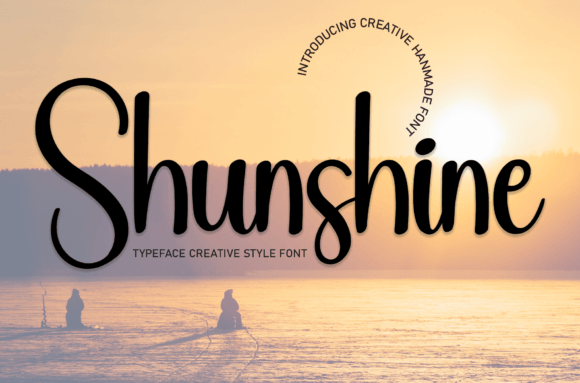
Introducing Shunshine: A Font Family Born from Warmth and Cheer
In a digital landscape often void of genuine emotion, we forget the heart-stopping beauty of handwritten notes and intimate invitations. Shunshine Font is here to invoke that nostalgia, reintroduce warmth into our interactions, and breathe life into your creative projects.
Shunshine is a meticulously crafted script font, born from the desire to bring a piece of home into every letter. Every curve is a gentle embrace, every stroke a stroke of comfort. Its charmingly imperfect edges mimic the human touch, inviting a sense of connection and intimacy in each word.
Step into a world where fonts do more than convey words; they encapsulate feelings, evoke memories, and tell stories. Shunshine is not just a collection of letters; it's a portal to a world of warmth, love, and familiarity.
Whether you're a seasoned designer or just starting your creative journey, Shunshine is your perfect companion. Its versatility knows no bounds, adapting seamlessly to wedding invitations, heartfelt letters, eye-catching logos, and whimsical branding.
With Shunshine, your designs transcend the ordinary and enter the realm of the extraordinary. Each letter dances off the page, whispering secrets and sharing stories. Your creations become more than just visual representations; they become tangible expressions of your heart and soul.
So, let Shunshine be your muse, your guiding light in the world of design. Embrace its comforting embrace, and watch as your projects bloom with heartfelt authenticity. Let Shunshine transform your words into works of art, where every letter radiates with warmth and invites connection.